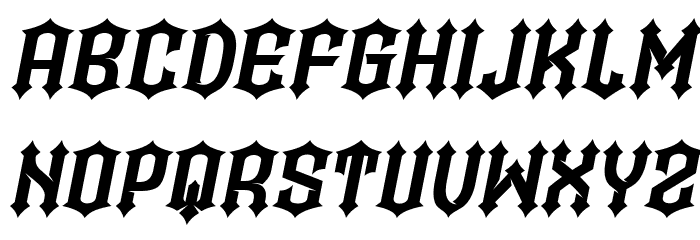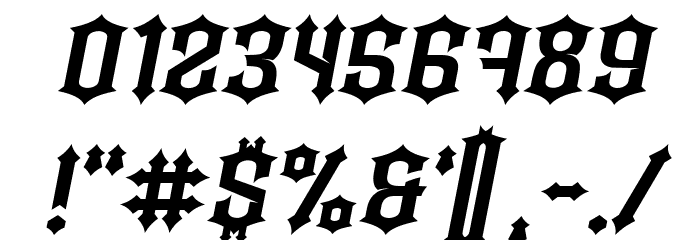
Bramble Princess Italic Font
This font features a bold and dramatic style with sharp, angular edges and a distinct gothic influence. The characters are heavily stylized, with a strong emphasis on vertical strokes and pointed serifs that give it a medieval, almost regal appearance. The italic slant adds a dynamic and energetic feel, enhancing its decorative nature. The uppercase and lowercase letters maintain a consistent design, ensuring readability while still offering a unique flair. Numbers and special characters are equally ornate, making this font suitable for projects that require a touch of elegance and drama.
A bold, gothic-style italic font with sharp, angular edges and a medieval flair.
- Proposed Projects: Ideal for fantasy-themed designs, book covers, posters, and branding that requires a dramatic and elegant touch.